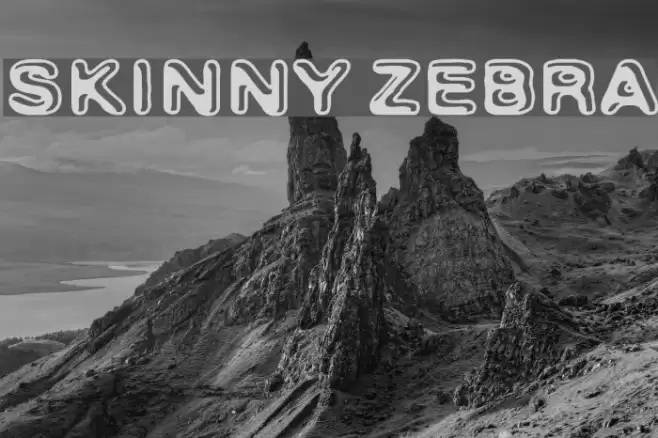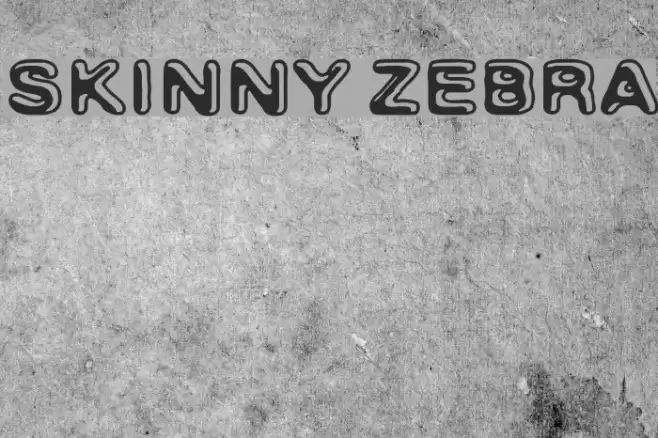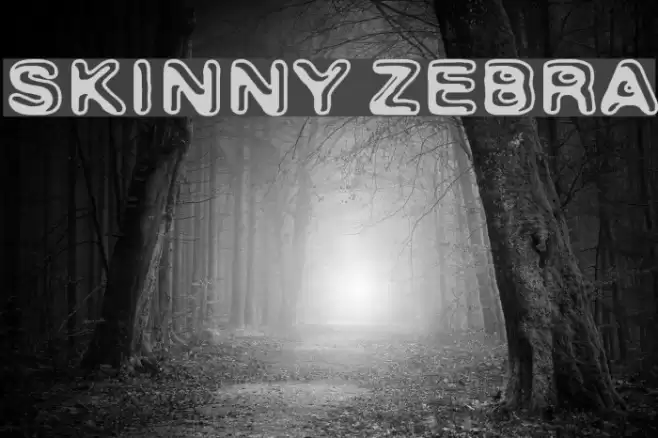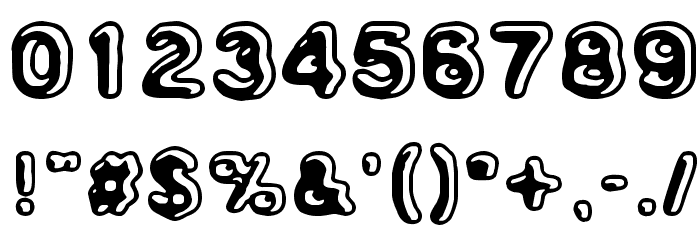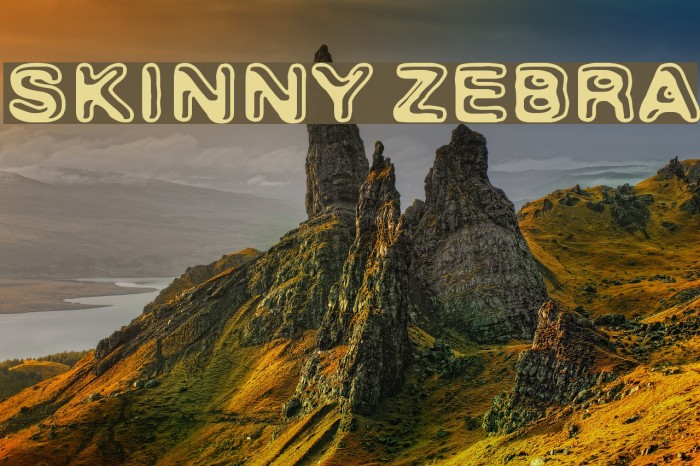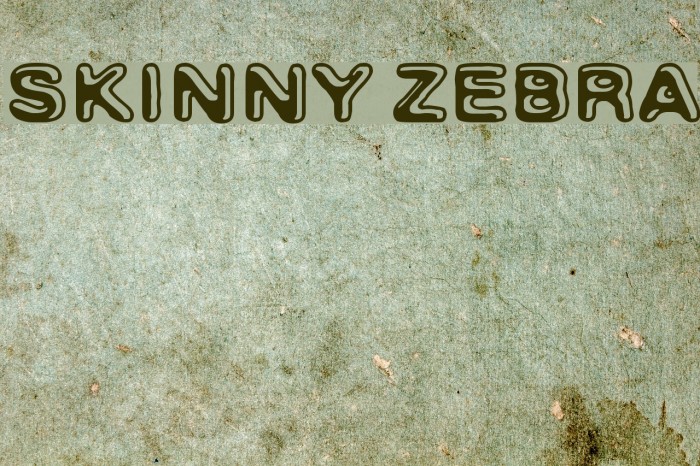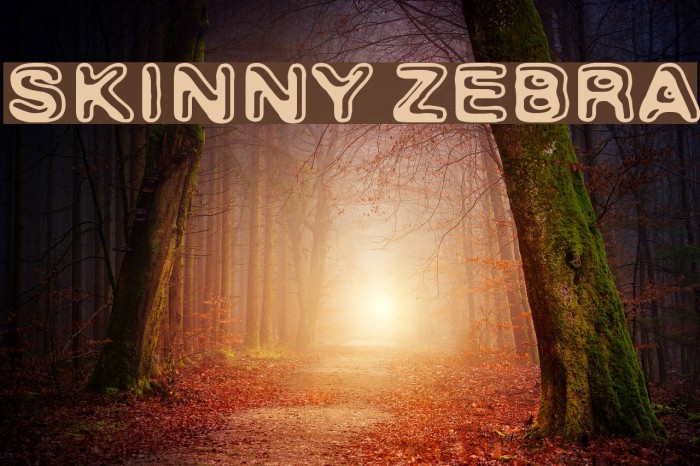
Skinny Zebra Font
Skinny Zebra Description
This font features a playful and bold design with an outline style that gives it a unique, eye-catching appearance. The characters are rounded and have a slightly irregular shape, adding to the whimsical and informal feel. The bold outlines create a strong visual impact, making it suitable for designs that require a fun and energetic vibe. The font maintains consistency across uppercase, lowercase, numbers, and special characters, ensuring versatility in various applications. Its distinct style makes it ideal for creative projects where a standout font is needed.
A playful, bold outline font with a whimsical and energetic style from Uncategorized fonts.
- Overall Style: Playful, Energetic, Whimsical